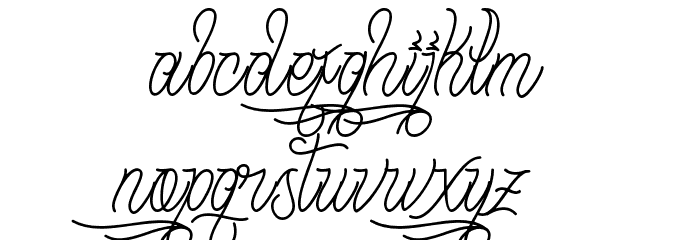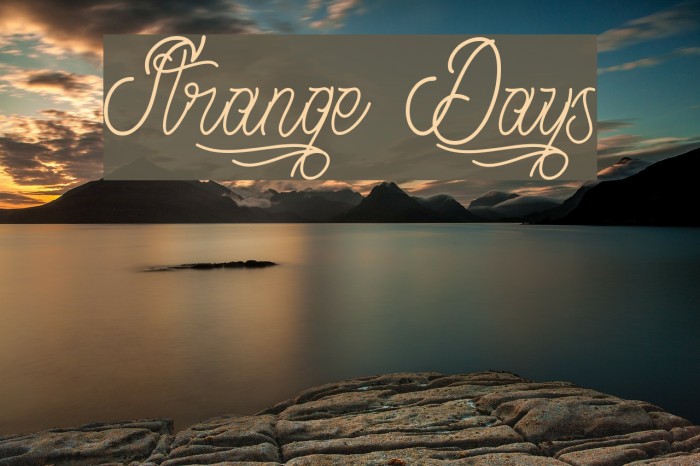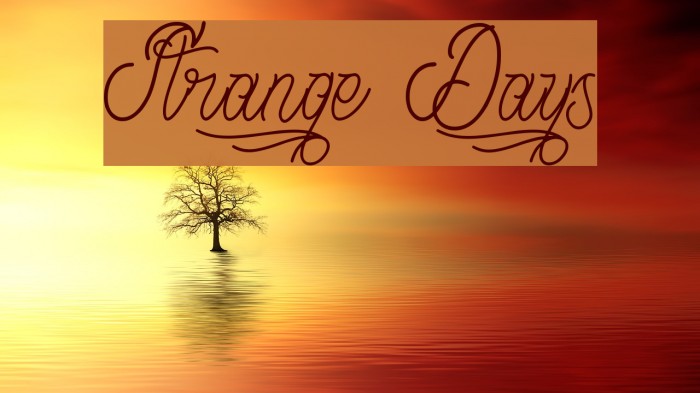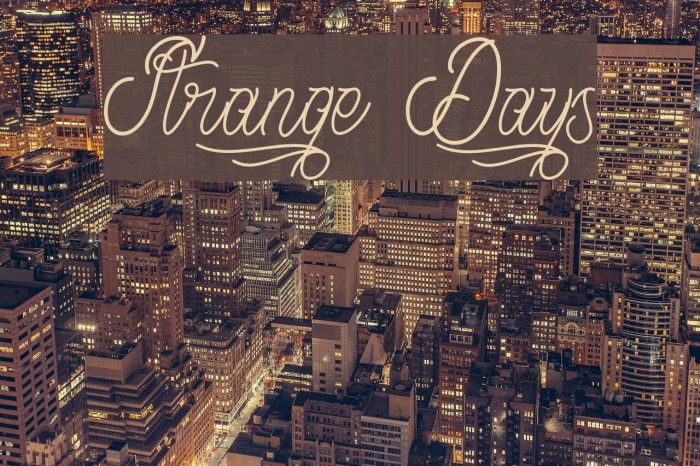
Strange Days Font
This font exhibits a highly decorative and intricate script style, characterized by elegant, flowing lines and elaborate swashes. The uppercase letters are particularly ornate, with extended flourishes that give a sense of movement and sophistication. The lowercase letters maintain a consistent style, with some letters featuring unique loops and curls that add to the overall decorative appearance. The numerals and special characters are designed to match the elaborate style of the alphabet, ensuring a cohesive look across all characters. This font is ideal for projects that require a touch of elegance and artistic flair.
An ornate and decorative script font with flowing lines and elaborate swashes.
- Proposed Projects: Ideal for wedding invitations, luxury branding, artistic posters, and decorative headlines.
- Use Case: Logos, Headlines, Invitations